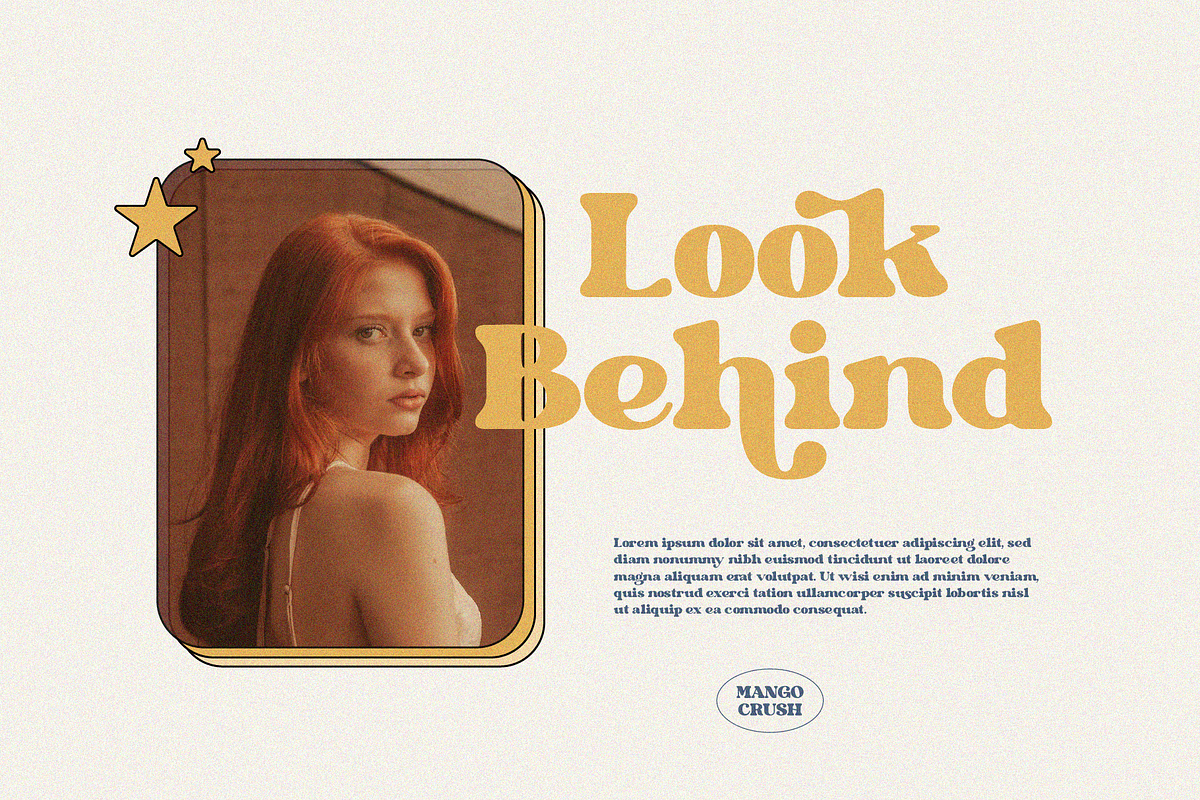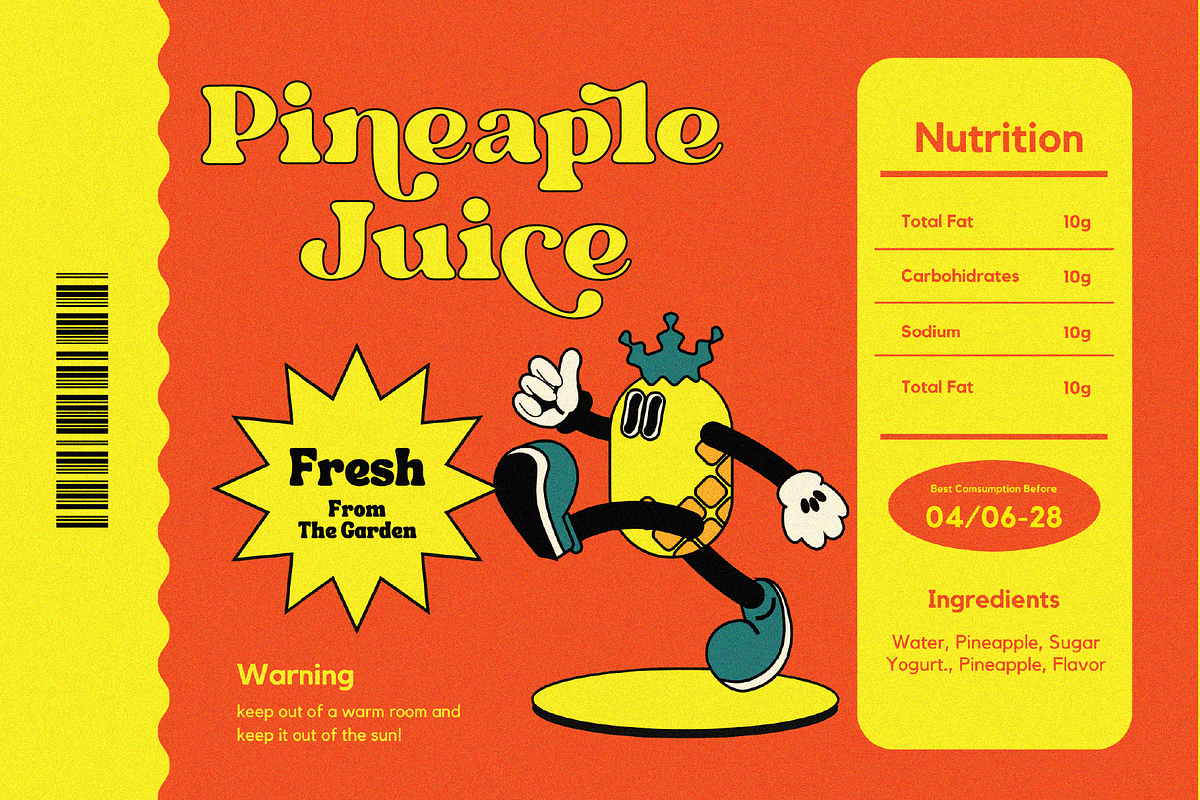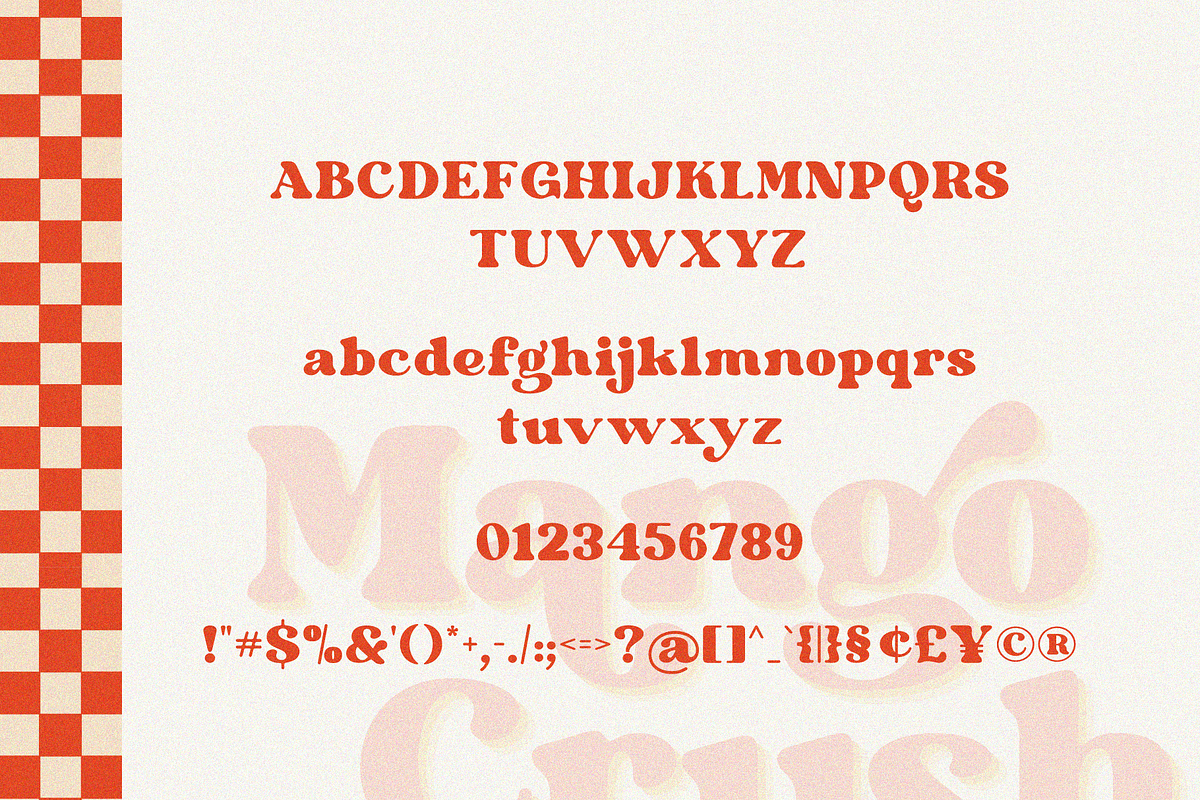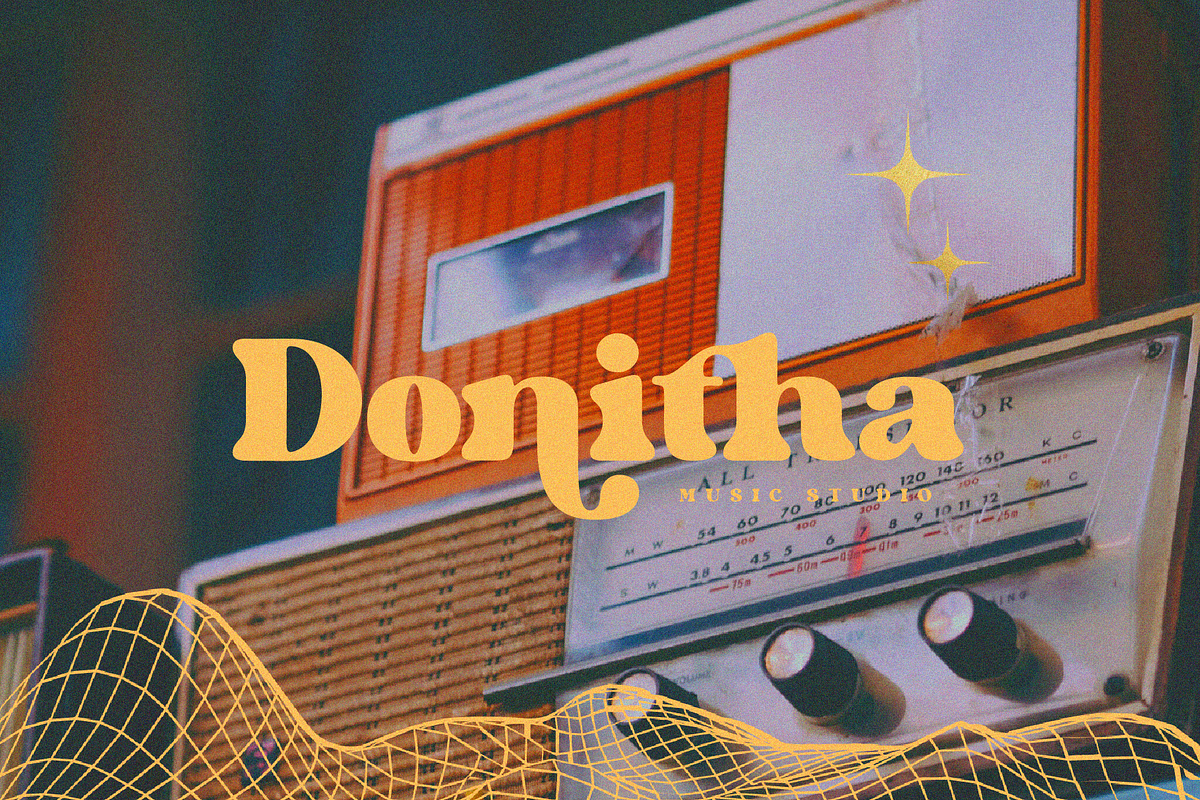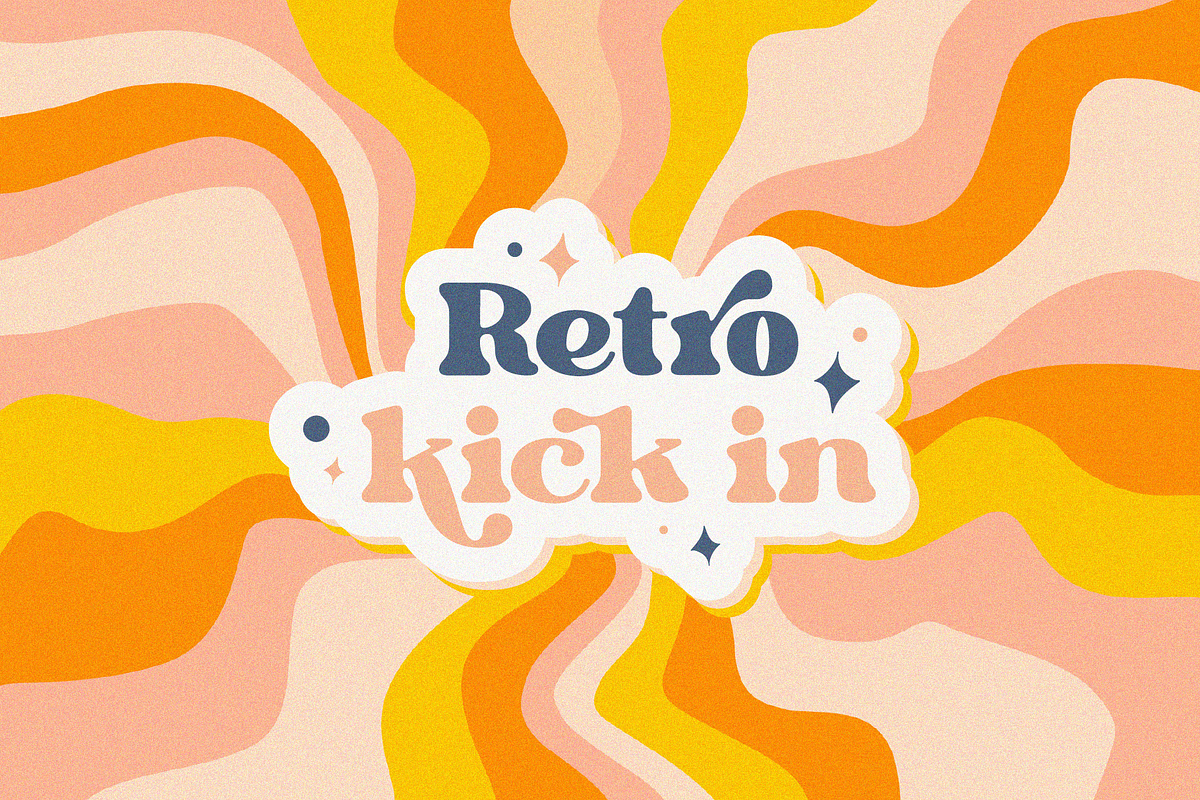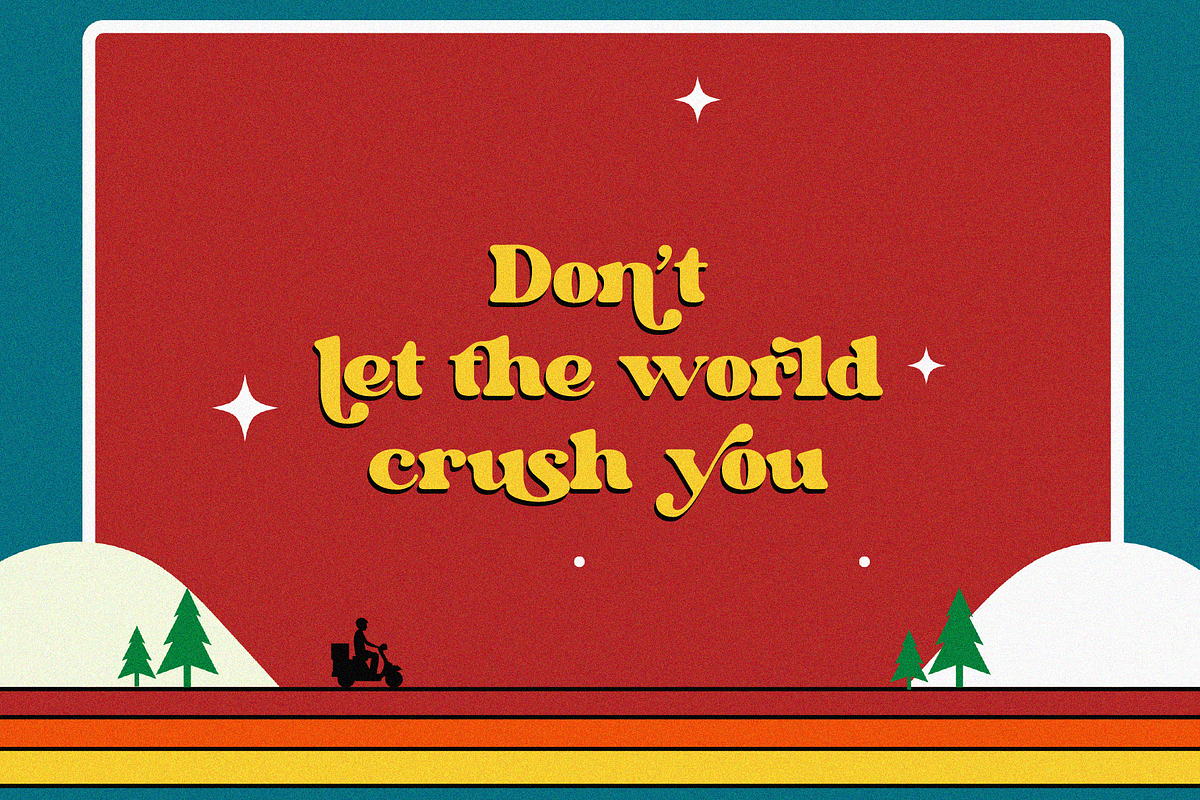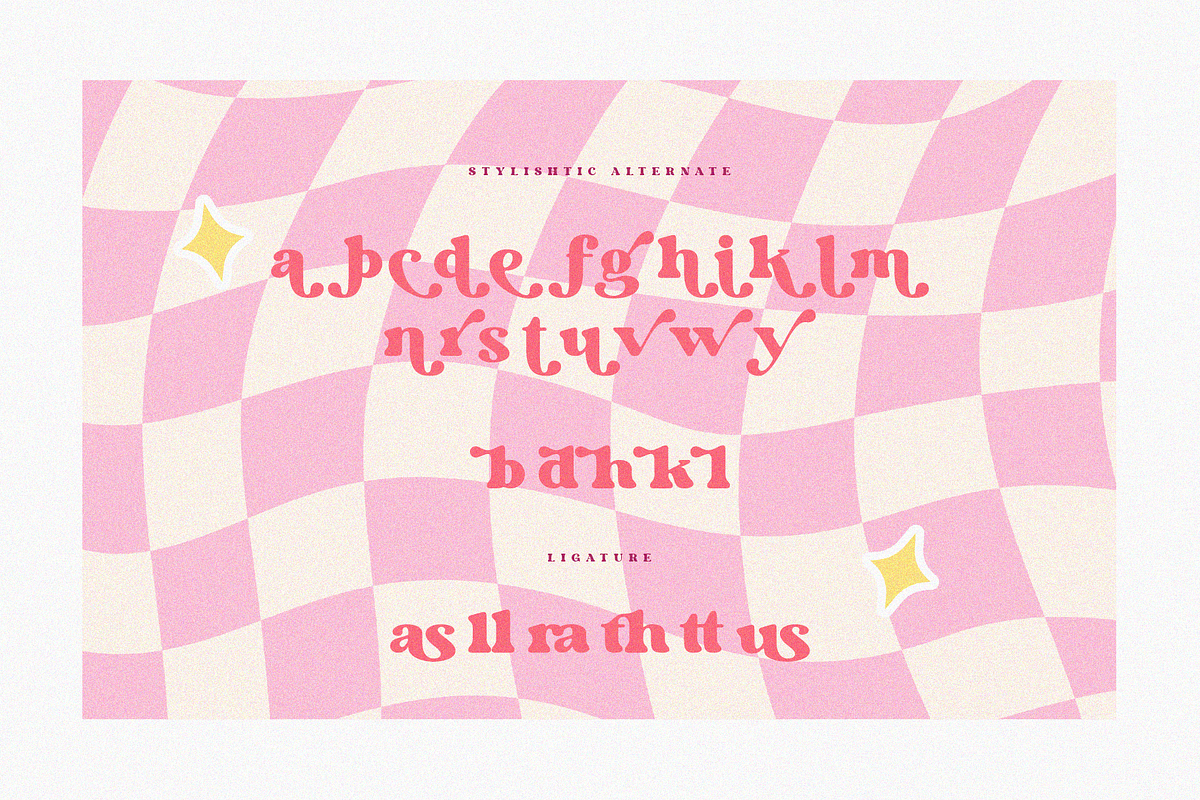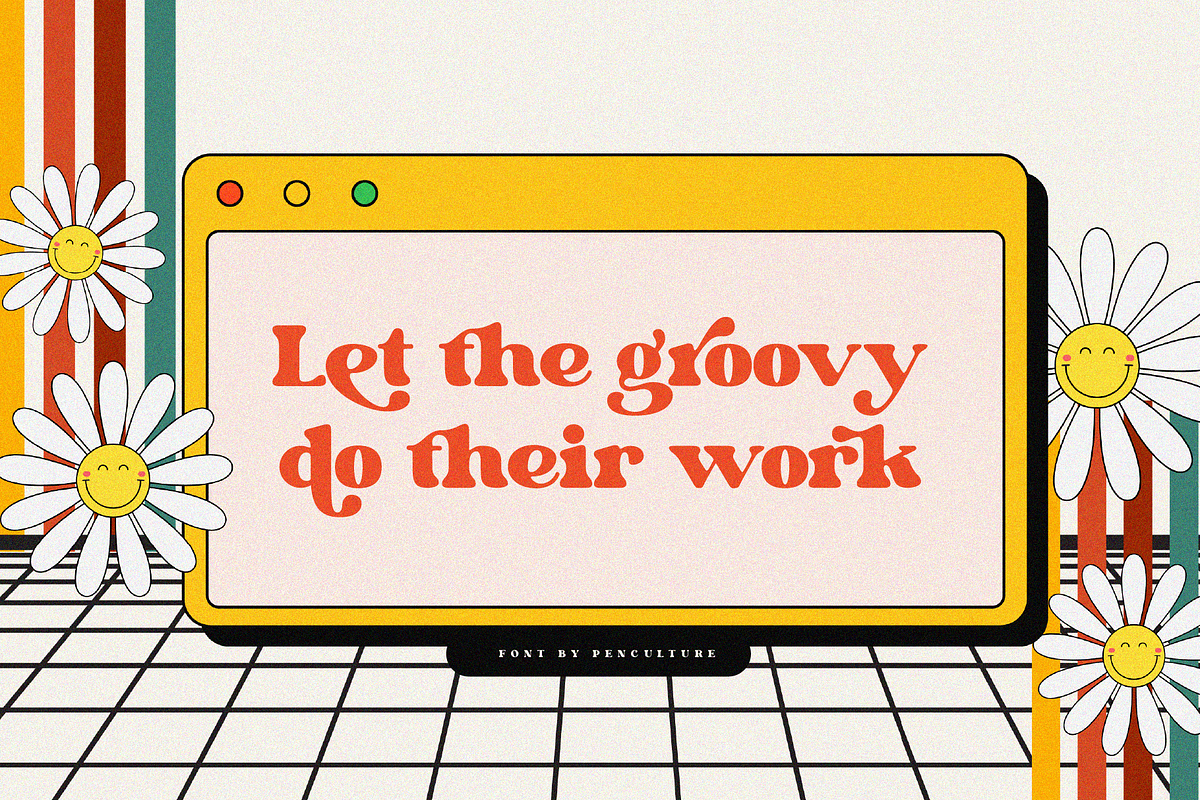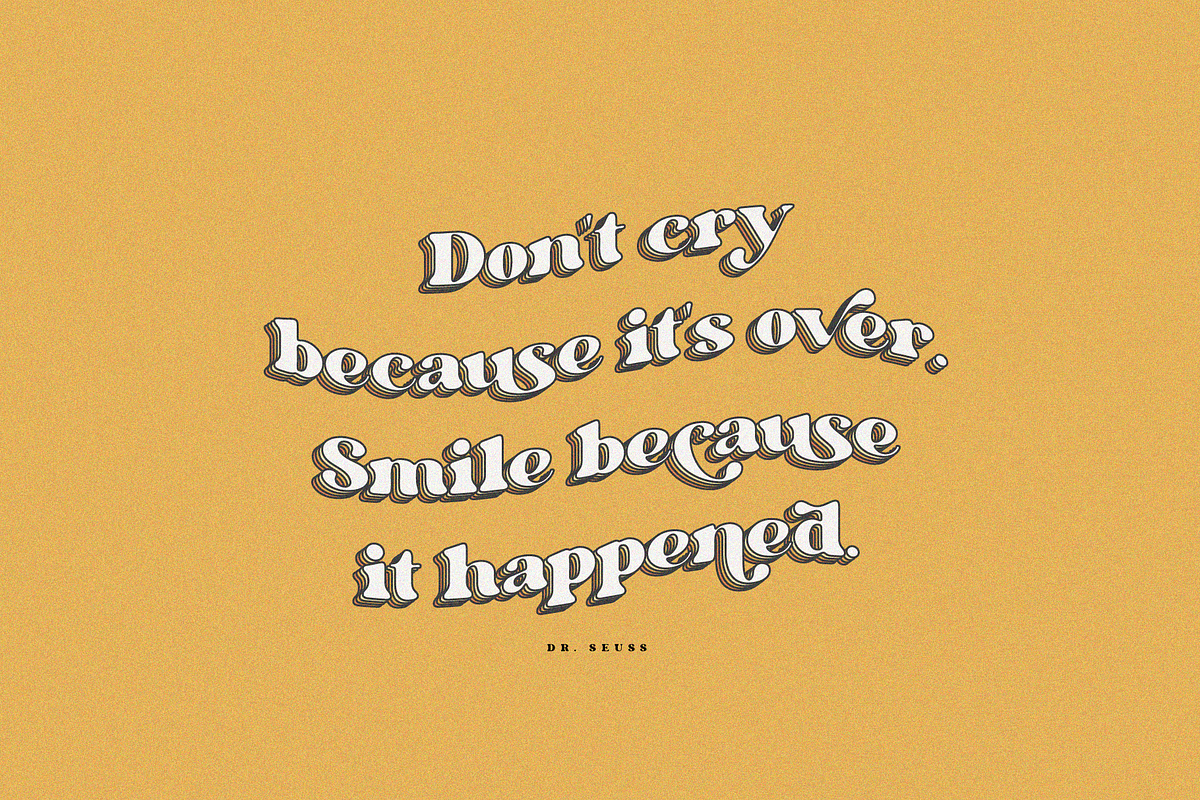
Mango Crush Retro Serif Font
Proudly present "Mango Crush - A Retro Serif Font"
Mango Crush is a retro serif font with smooth curve. You can fell the groovy and sweet of this font in every shape of letter, this font also has a beautiful ligature and alternate , so you can create your design more stunning. Mango Crush perfect for any kind design project like branding, logo design, invitation, cricut project, embroidery also you can use it in canva / procreate.